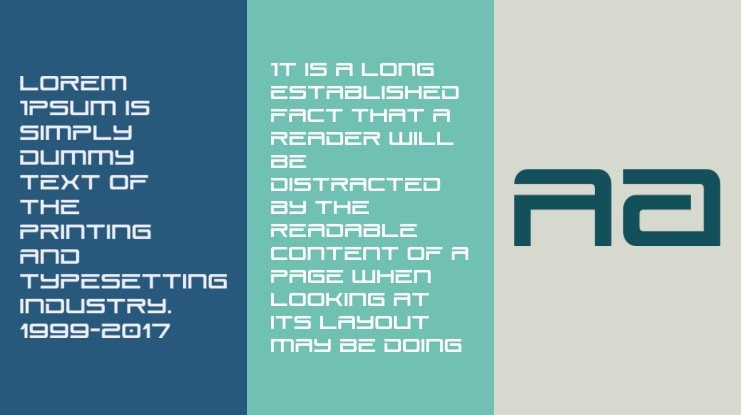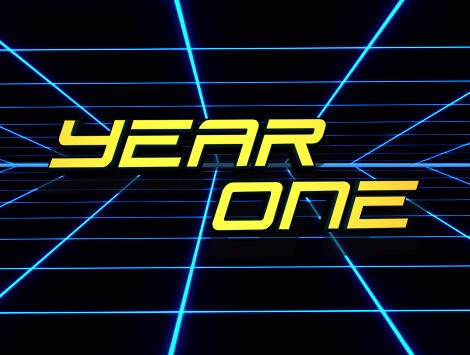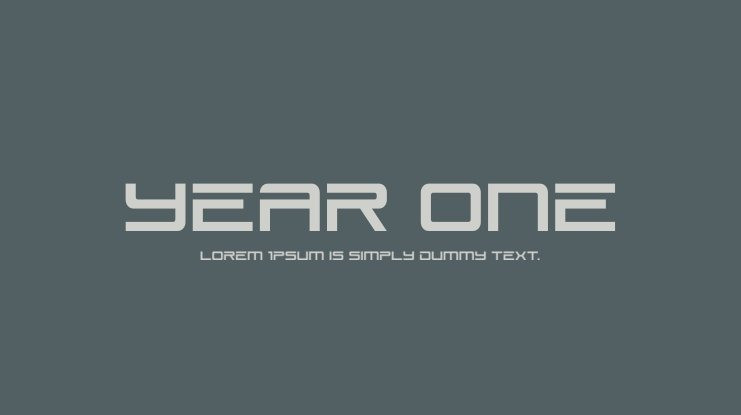
Year One Font
Year One Display Font, Its optimum legibility, clean, and geometric look is perfect branding, brochures, greeting cards, quotes, posters, stationary, design titles, blog headers, and much more.